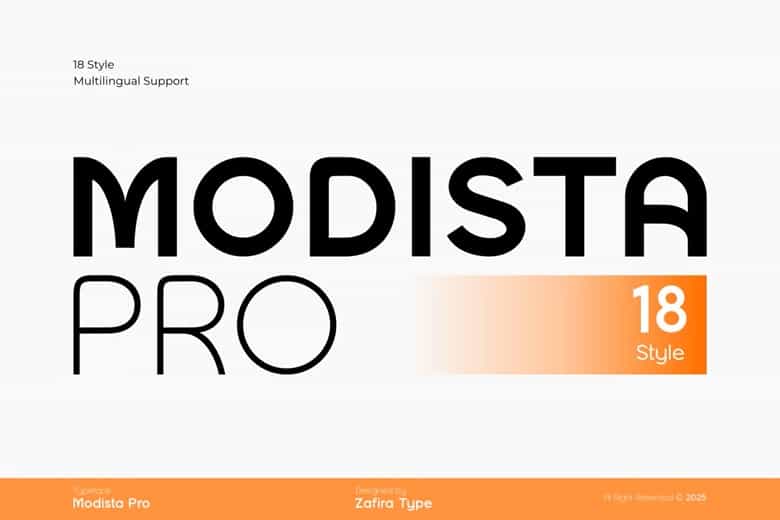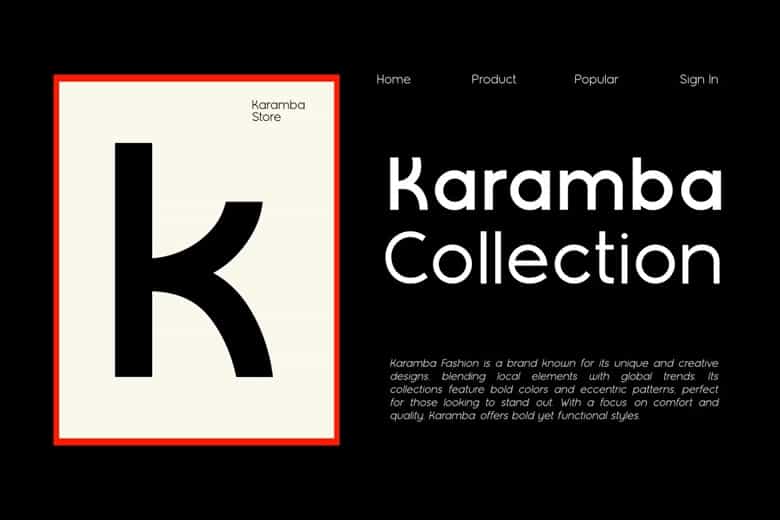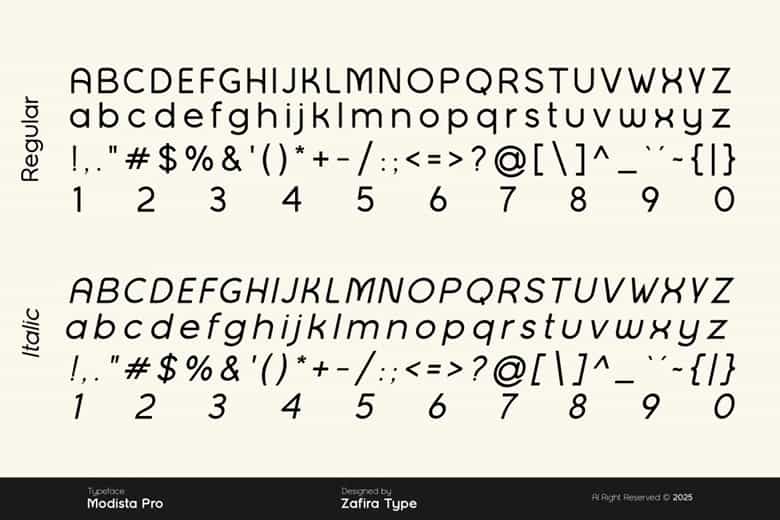
Modista Pro is a new and modern sans serif font family with thin to heavy weight and italic. Using simple geometric shapes and symmetrical characteristics, thus Modista Pro is suitable for any design related fields such as branding, editorial, web design typography and more. Due to its clarity and strength, it is suitable for designing good and professional typographic separation.